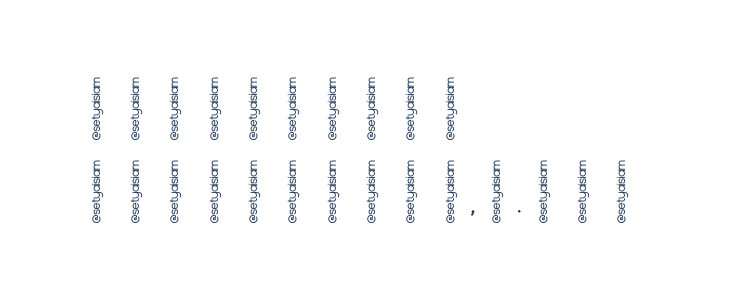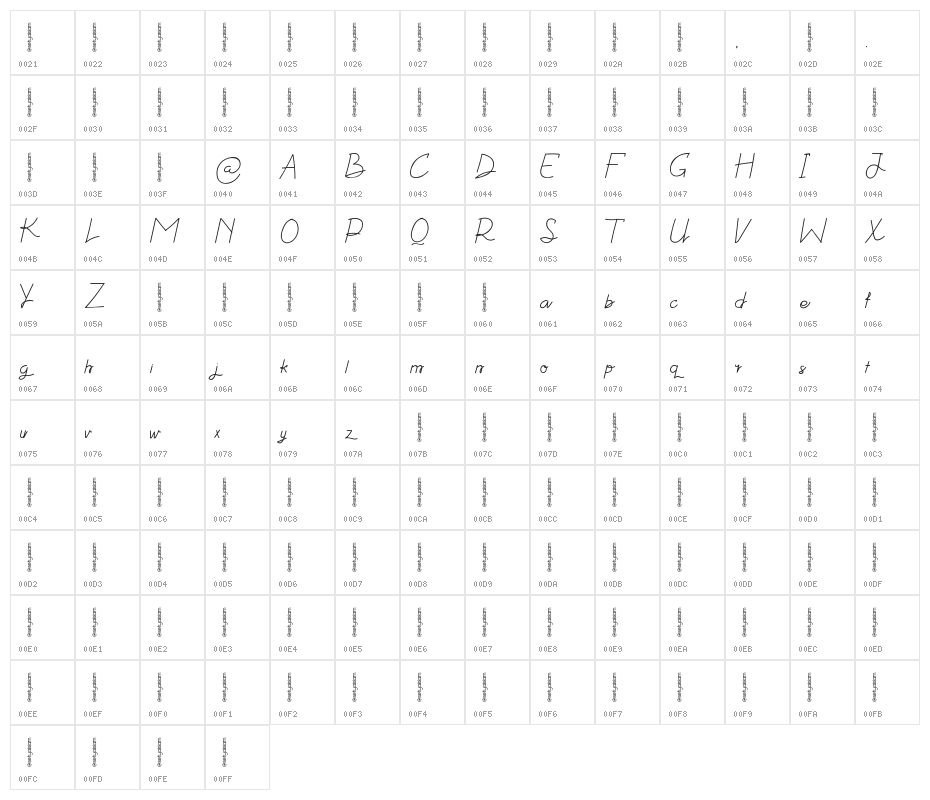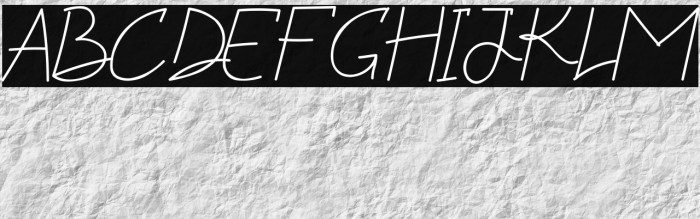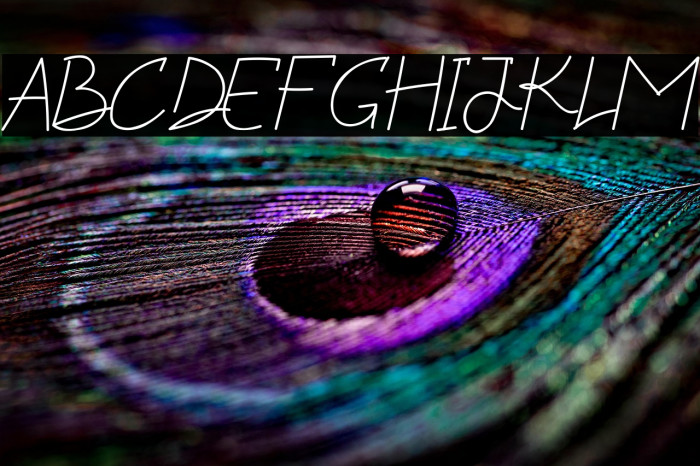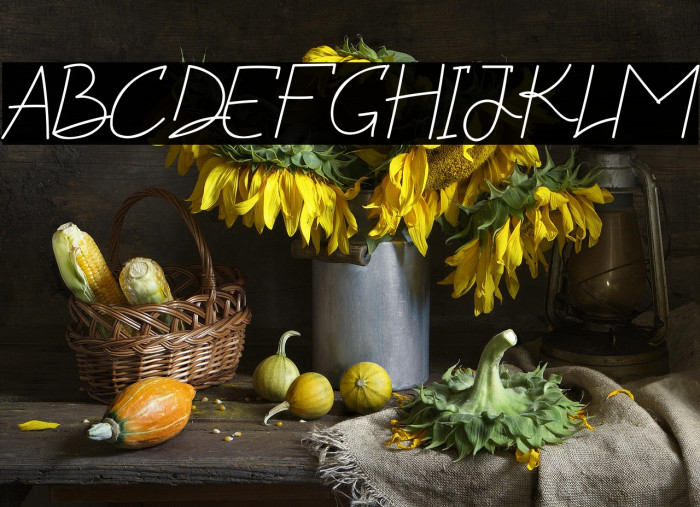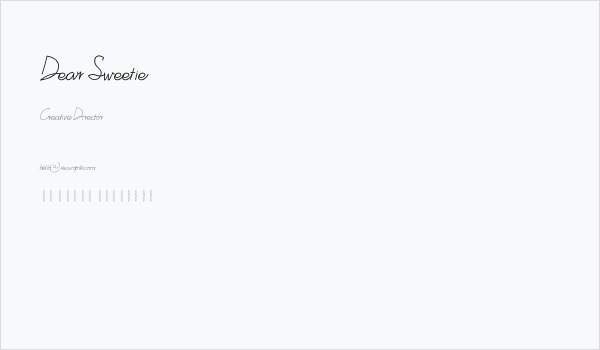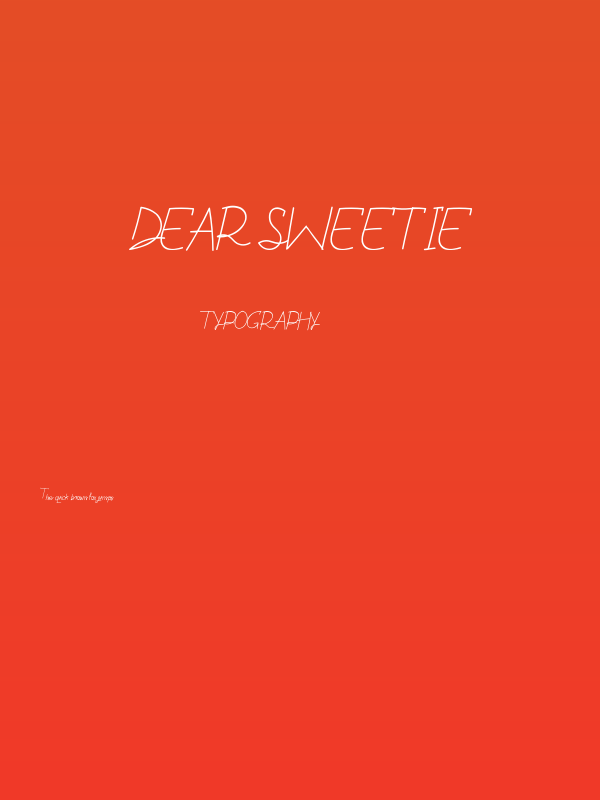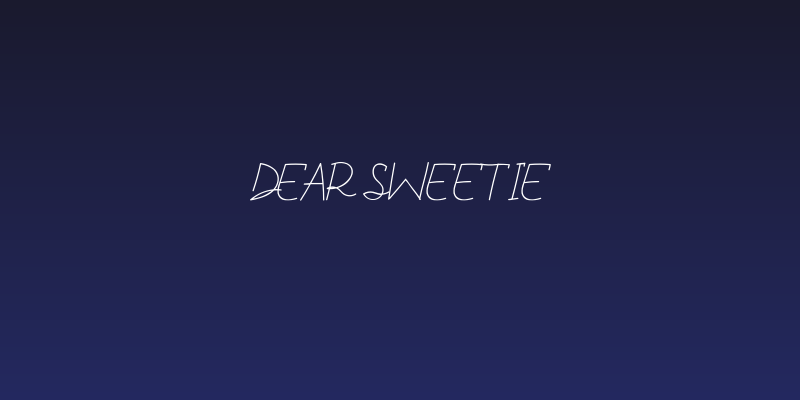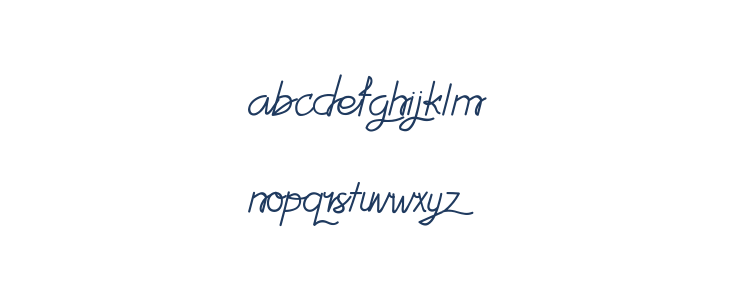
Dear Sweetie Font
Dear Sweetie Description
This font features a playful and whimsical script style, characterized by its flowing, handwritten appearance. The uppercase letters are tall and slightly slanted, giving a dynamic and lively feel. The lowercase letters maintain a consistent flow with a mix of loops and curves, enhancing its casual and friendly aesthetic. The strokes are thin and uniform, providing a delicate and elegant touch. This font is well-suited for creative projects that require a personal and informal tone.
| Overall Style | Casual and playful |
| Use Case | Logos, Invitations, Social media graphics |
| Proposed Projects | Ideal for greeting cards, invitations, personal branding, and creative social media graphics. |